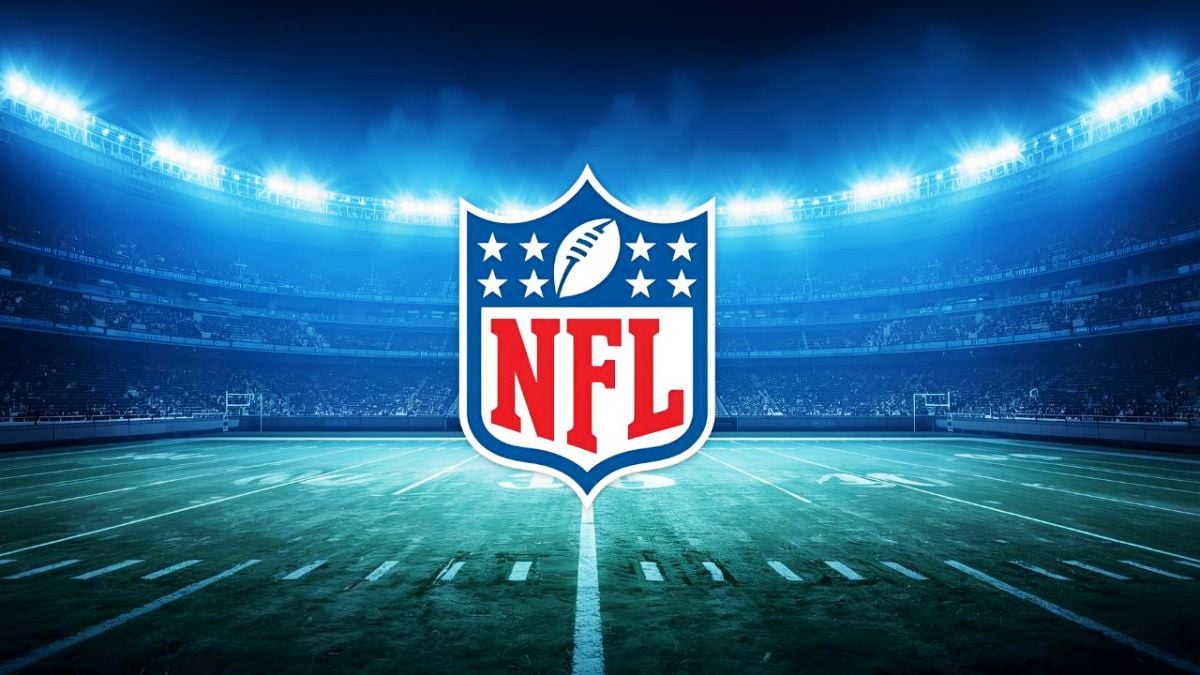
Get the authentic Freshman NFL font – the official typeface of the National Football League. Perfect for sports graphics, fan content, and game day designs.
What is NFL Font?
The NFL Font, also known as Freshman, is the official typeface of the National Football League. Created specifically for NFL branding and communications, this font embodies the power, tradition, and excitement of professional football. Its bold, athletic design makes it perfect for sports graphics, team logos, game day content, and fan apparel.
🏆 Official NFL Font
Access the authentic Freshman font – the same typeface used by the NFL for official communications and branding.
🏈 Perfect For NFL Fans
🏟️ Game Day Content
- Social media game day posts
- Football game predictions
- Live game commentary
- Fan reaction graphics
🎨 Sports Graphics
- Team logo designs
- Fan merchandise
- Football posters
- Sports photography
💻 Digital Content
- Sports blog headers
- Fantasy football sites
- Football apps
- Sports streaming overlays
🎨 Design Tips
Best Practices
- Use NFL font for authentic sports content and football graphics
- Choose appropriate font weights (Regular for body text, Bold for headings)
- Maintain consistent spacing and alignment for professional sports appearance
Avoid Common Mistakes
- Don’t overuse Freshman Bold for long text passages
- Avoid very small sizes where readability suffers
- Don’t mix too many font variants in one design
- Ensure proper contrast with background colors